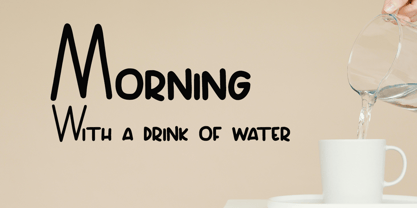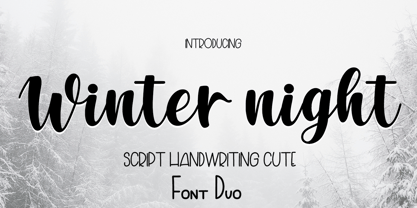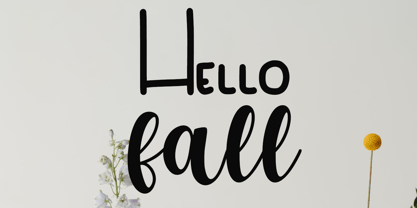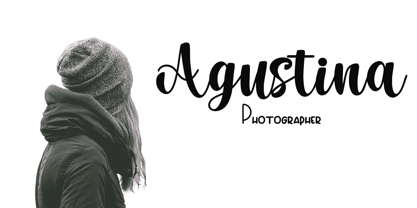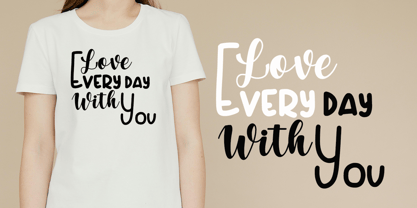
Winter night
by Cocodesign
The Winter night Font Family was designed by Muhammad Zaini and published by Cocodesign. Winter night contains 2 styles and family package options. More about this family
Introducing the Winter Script Font Duo - a uniquely contemporary and lopsided baseline script font that emanates a fashionable feminine flair. It magically transforms wedding invitations, gratitude notes, quotations, greetings, logos, and business cards into enchanting pieces of art. This font duo seizes the spotlight when enhanced with ink or watercolors, demonstrating its versatility. Along with charming initial letters and terminals, it also offers alternative fonts and an expansive language support. All-in-all, Winter Script Font Duo brilliantly fuses modern design with a whimsical touch, enhancing any composition it adorns.
Designers: Muhammad Zaini
Foundry: Cocodesign